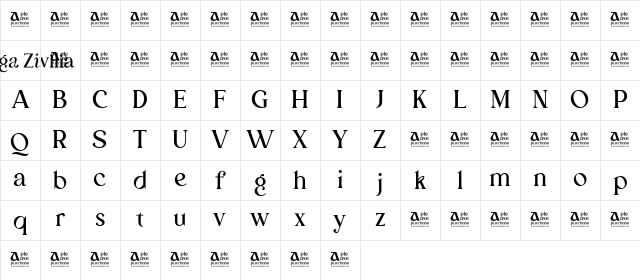
Bunga Zivilia Regular Free Font
Bunga Zivilia Regular
Foundry: ArtchiType Studio
Designer: Chairul Ma'arif
Design Context for Bunga Zivilia
Bunga Zivilia is a composed and adaptable typeface that performs quietly and consistently across a wide range of design contexts.